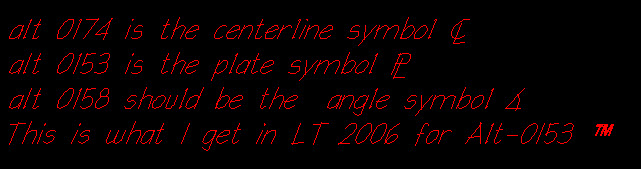
gtwatson Posted January 20, 2009 I like the handletter look of ARCHS.SHX and use it in Autocad LT 2002. I do structural detailing ( although I am an Engineer and only dabble in CAD ) and use the special symbols for Centerline, Plate, and Angle. I have no problem using the symbols in LT2002 and use the Alt-0174, Alt-0153, and Alt-0158 respectively to letter drawings with mtext. I use LT 2002 even though we have ACLT 2006 available because I am used to the menus and look and feel. When I try to use the special symbols in LT 2006 in mtext, the Alt-0174 works for the centerline but the Alt-0153 comes back as a TM (trademark?) and the Alt-0158 comes out as a Z with a v on top of it instead of the Plate Symbol and Angle Symbol. The odd thing is that I can create the text in LT 2002 and then open the DWG in LT 2006 and it looks and prints correctly, but when I try to use it in Mtext I get the wrong symbols. I have the same search paths in both versions since the LT 2006 was an upgrade from LT 2002 and used the same settings. Has anyone else run into this problem? I did try a search. Quote
dbroada Posted January 20, 2009 do you have the same problem if you use a different font? Quote
gtwatson Posted January 20, 2009 Author Posted January 20, 2009 The ARCHS.SHX is the only hand letter font that I know of that use the special symbols I need. I'll try to attach an image of what they look like if I can figure out how to do it. I think I was succesful. Quote
Strix Posted January 21, 2009 I could be wrong, but I'm pretty certain it's possible to reprogram the alt+ functions Quote
gtwatson Posted January 21, 2009 Author Posted January 21, 2009 I thought the Alt-XXXX was just the way you specified an ASCII character that was not on the keyboard. The correct symbol may be somewhere in the table and I don't know how to display a map of symbols that correspond to the 4 digit ASCII code. I tried to run CHARMAP but the ARCHS font is not on the list. The ARCHCHAR.DWG file that comes with the fonts shows the available special characters. I just tried out DTEXT and put in %%153 and I get the correct symbol for Plate in ACLT 2006, but when I use Mtext and put in %%153 and hit OK, I get the literal %%153 on the drawing. So now I wonder why Mtext does not behave like Dtext? With a little experimenting, I opened an Mtext box and started trying ALT+nnn with the Archs font in the box. If a character exists in Archs, it is displayed. If the character is undefined, the font changes to Arial and I have to reselect Archs as the font. Quote
Coosbaylumber Posted January 23, 2009 I think you are trying to mix two different font styles. DTEXT will understand the x.SHP and x.SHX type of fonts. It will not understand any of the TrueType ones, nor anything that works direct in MS-Windows. This type of font works OK on pen plotters. MTEXT is just another way of slapping a letter on to the page. It uses the TrueType fonts or whatever is stored in Windows. This type of font works good with raster type of plotters. Surprizing you even got the error message, for I never did. Ran into this situation back in R-14 as I remember. The Standard TXT type will interchange, but not anything else (normally). Wm. Quote
gtwatson Posted January 23, 2009 Author Posted January 23, 2009 I am not a power user of AutoCAD, I just know enough to put lines and text inside a border, so you are probably right. I have been sucessful in using the SHX fonts in dimensioning where I can stack fractions and in MTEXT in ACLT 2002 where I can call out angle and plate sizes like PL 3/8 x 8 1/4 x 1'-6 3/16 (50 ksi) and have the plate symbol show up and the fractions stack. I was just wondering why it works in 2002 and not in 2006 versions of AutoCAD LT. I guess my work around is to use Dtext to put in the symbol for plate then use Mtext to put in the rest of the text. Quote
gtwatson Posted August 10, 2010 Author Posted August 10, 2010 We have AutoCAD 2006 which I loaded and I am having the same issue with the Archs.shx font so I came back here to resurect this old thread. I can create the symbols for plate in ACLT 2002 and open the drawing in Acad 2006 and it looks fine. I can still create the symbols in DTEXT using ALT0153 or ALT0158 and they work fine. We are probably going to upgrade to ACAD 2011 and I hope the issue is resolved. Quote